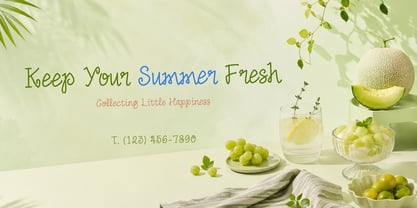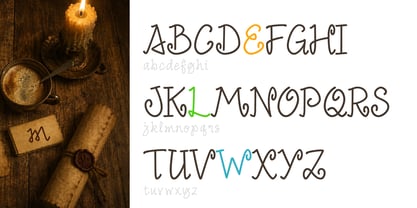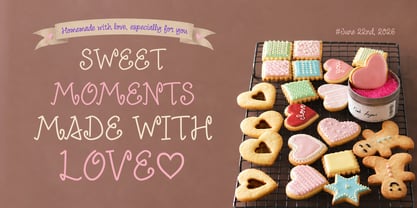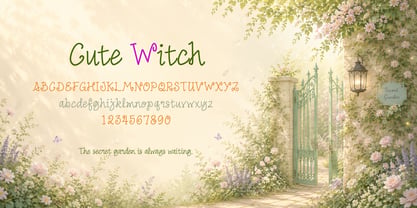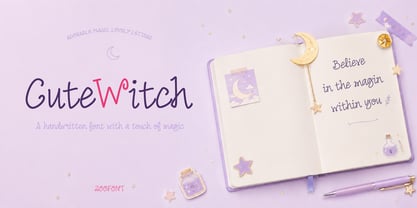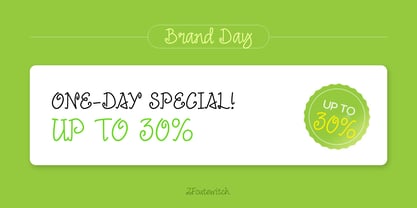
ZFcutewitch
Die Schriftfamilie ZFcutewitch wurde von joo-hong Kim entworfen und von ZooFont veröffentlicht. ZFcutewitch enthält 1 Stile. Mehr über diese Familie
Enchanting & Whimsical Handwritten Font
Inspired by a charming witch’s hat and magical broomstick, this handwritten font features playful curves, delightful loops, and free-spirited letterforms that bring a touch of enchantment to every word.
Its cute and expressive style creates a warm, cheerful atmosphere while maintaining excellent readability. Whether you're designing digital journals, greeting cards, invitations, branding materials, or merchandise, this font adds a magical and imaginative charm to your projects.
Like a little witch carrying a pocketful of spells, it turns ordinary moments into something a little more special, a little more playful, and a lot more memorable.
Perfect for creative projects that call for sweetness, whimsy, and a touch of everyday magic.